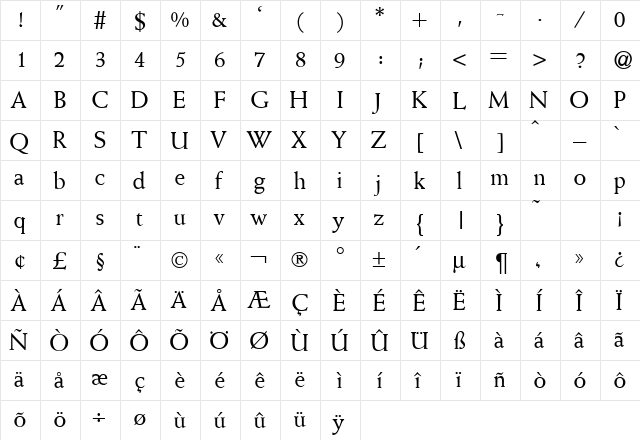
WeinAntikDB Normal
Design Context for WeinAntikDB Typeface
WeinAntikDB takes a measured approach to typography — its balanced proportions and neutral character make it a reliable workhorse for both digital and print work.
Pro Tip: Use WeinAntikDB in both headline and body roles to test its range before committing to a single application.